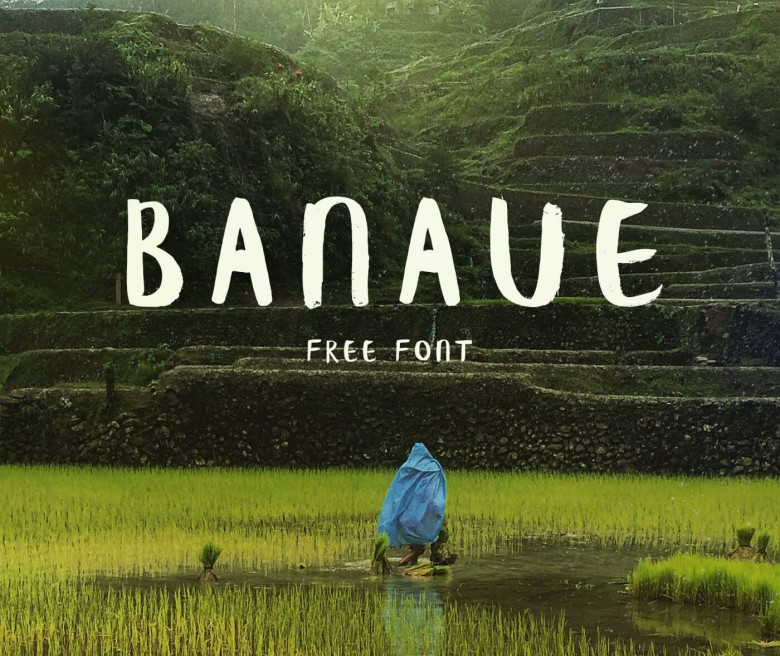
Banaue Brush font
Continue to introduce to you a new font gorgeous brush, Banaue Handwritten brush font was designed by Wild Ones Design. Banaue is a handwritten brush font for a homemade look. The font features 104 characters and has all the basic glyphs. The download contains a .otf file. Hand brushed by Ieva Mezule. The name comes from Philippenes, Banaue is a place in the north. Rice terraces that stretch around mountains, and the rice they produce is only for the local use. The lady in the blue raincoat, that is featured in the main image, was a local rice planter.